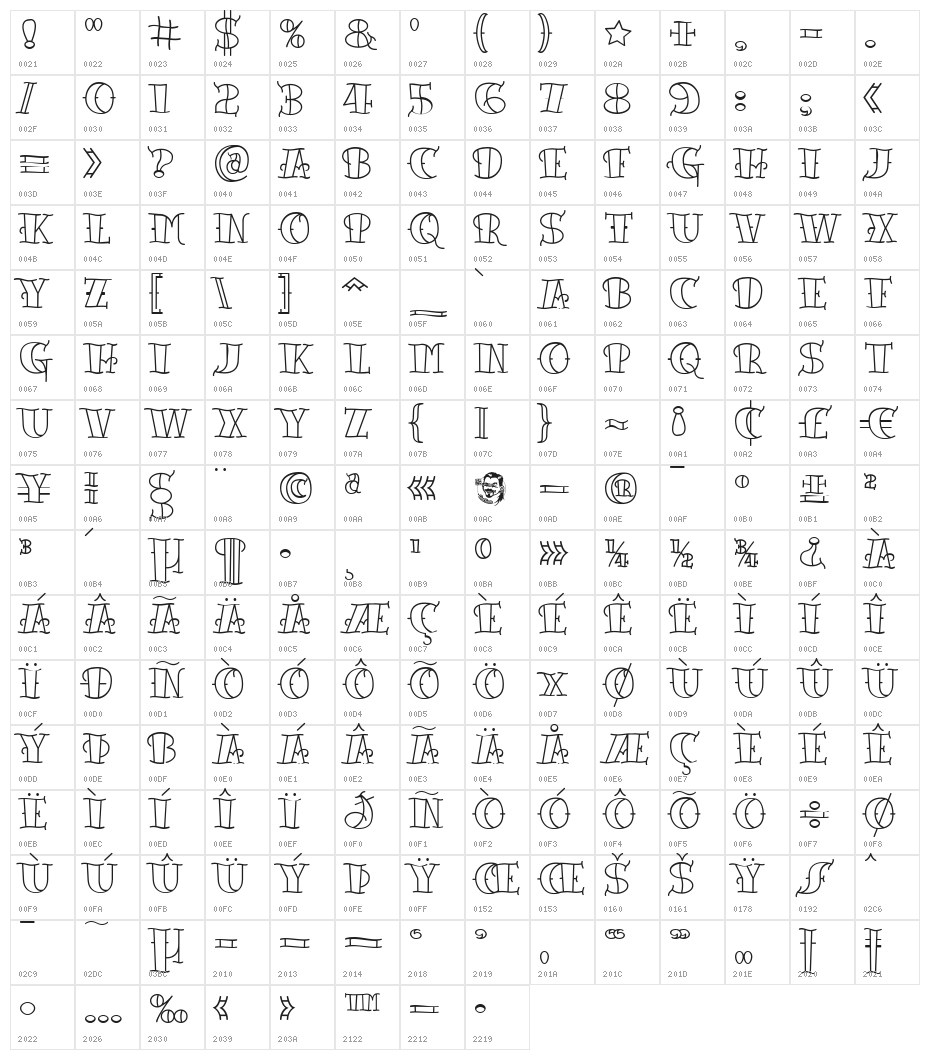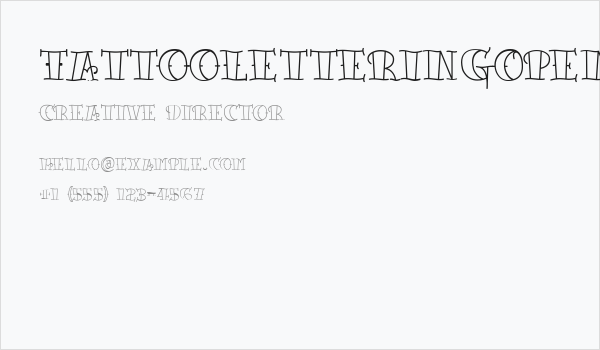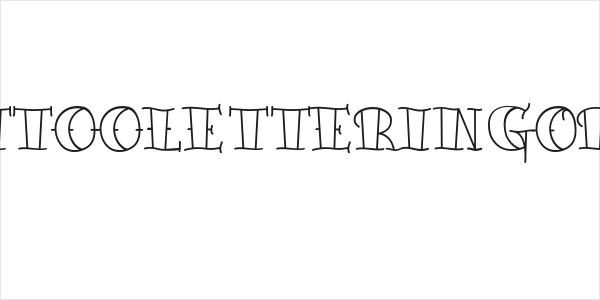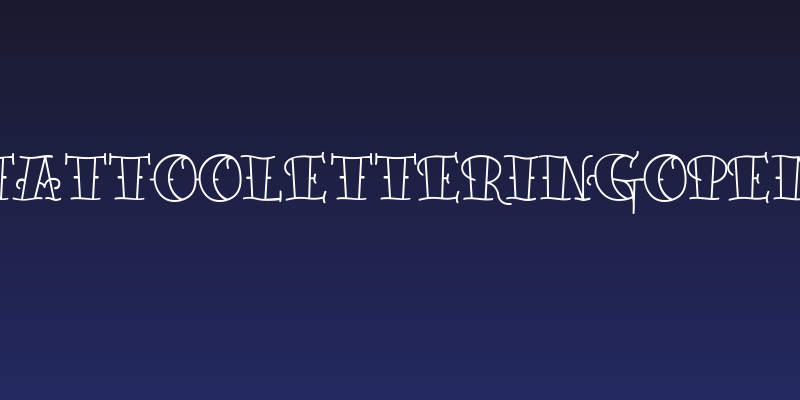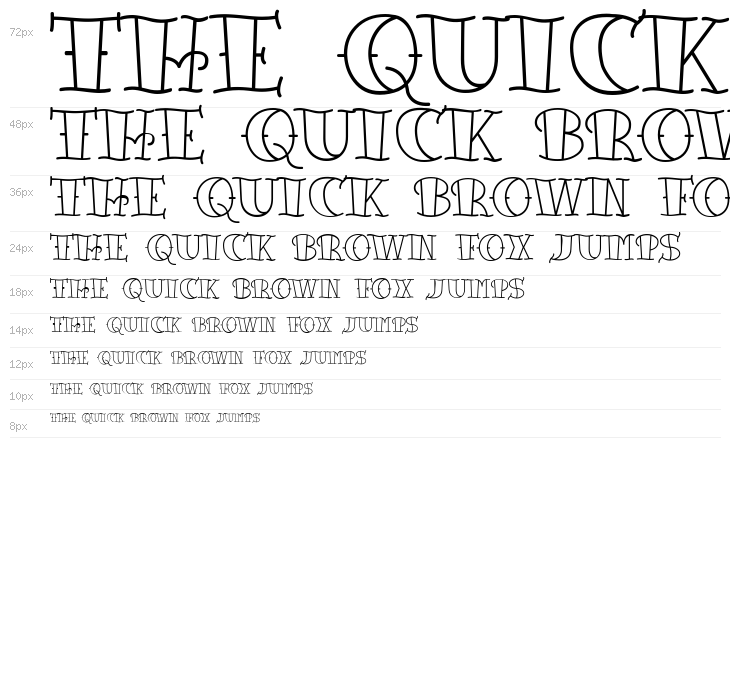
TattooLetteringOpen Font
TattooLetteringOpen Description
This font features a unique and artistic style, reminiscent of traditional tattoo lettering. Each character is designed with intricate lines and curves, giving it a decorative and ornate appearance. The uppercase and lowercase letters maintain a consistent design, with sharp angles and flowing lines that create a sense of movement. The numerals and special characters are equally stylized, adding to the overall cohesive look. This font's open and airy structure makes it stand out, while the detailed elements provide a sense of elegance and sophistication.
| Use Case | Logos, Headlines, Artistic projects |
| Proposed Projects | Ideal for tattoo designs, artistic posters, branding for edgy or alternative businesses, and decorative invitations. |